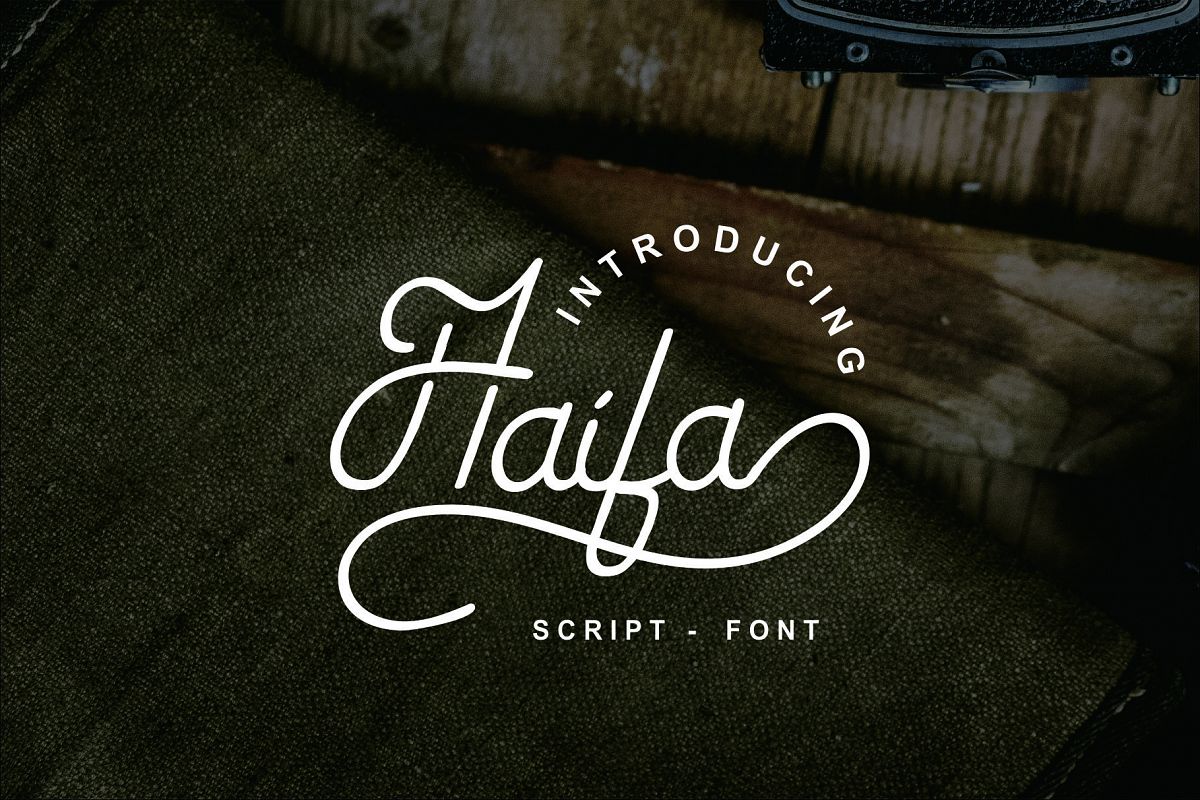
Haifa Font
Proudly presents our latest product 'Haifa script Combination" This typeface works really well for Vintage Logos, Apparel Design. It's also great for creating Prints or Merchandise, as you can use the illustrative qualities of the shapes to create an art piece.